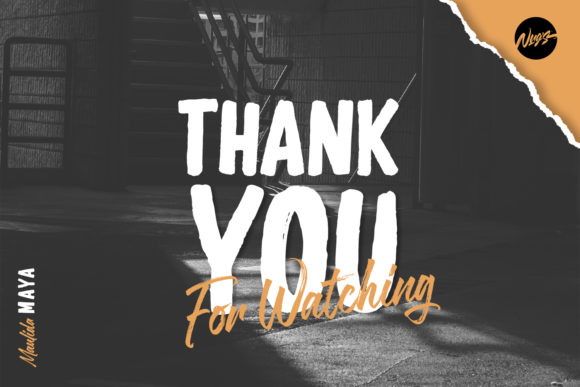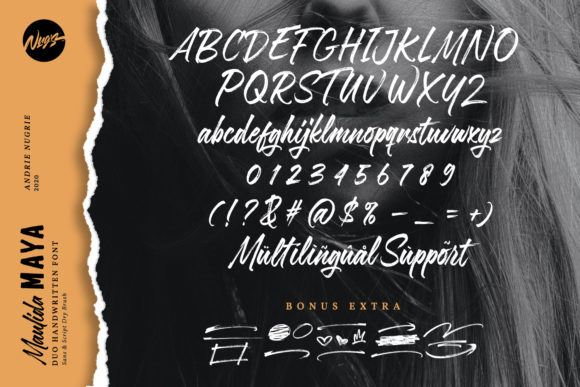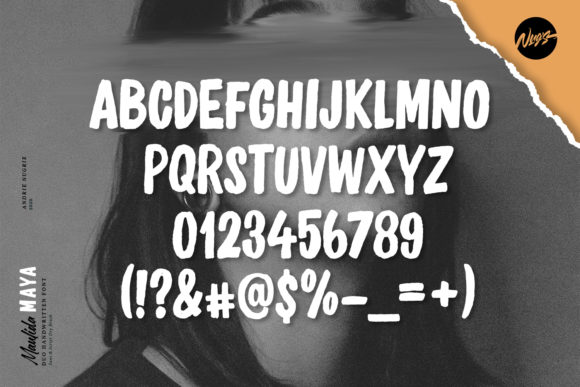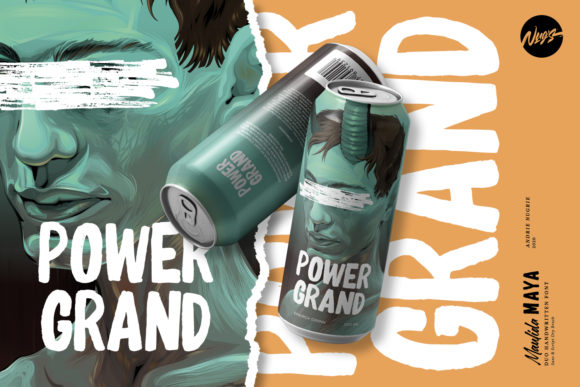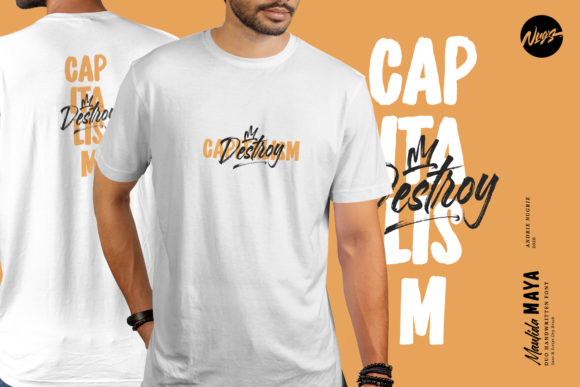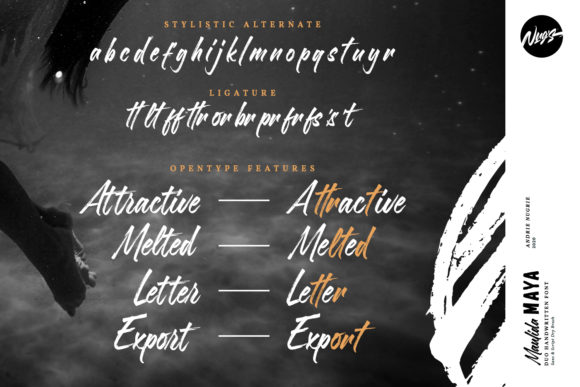
Introduction to Maulida Maya Font
Maulida Maya is a bold duo font (display and brushed handwritten).
Incredibly versatile, this font fits a wide pool of designs, elevating them to the highest levels Add this font to your favorite creative ideas and notice how it makes them come alive.
Key Features of Maulida Maya Font
Why Choose Maulida Maya Font?
Maulida Maya Font offers exceptional quality and versatility, making it a valuable addition to your design toolkit. Whether you’re creating for personal projects or commercial use, Maulida Maya Font delivers professional results.